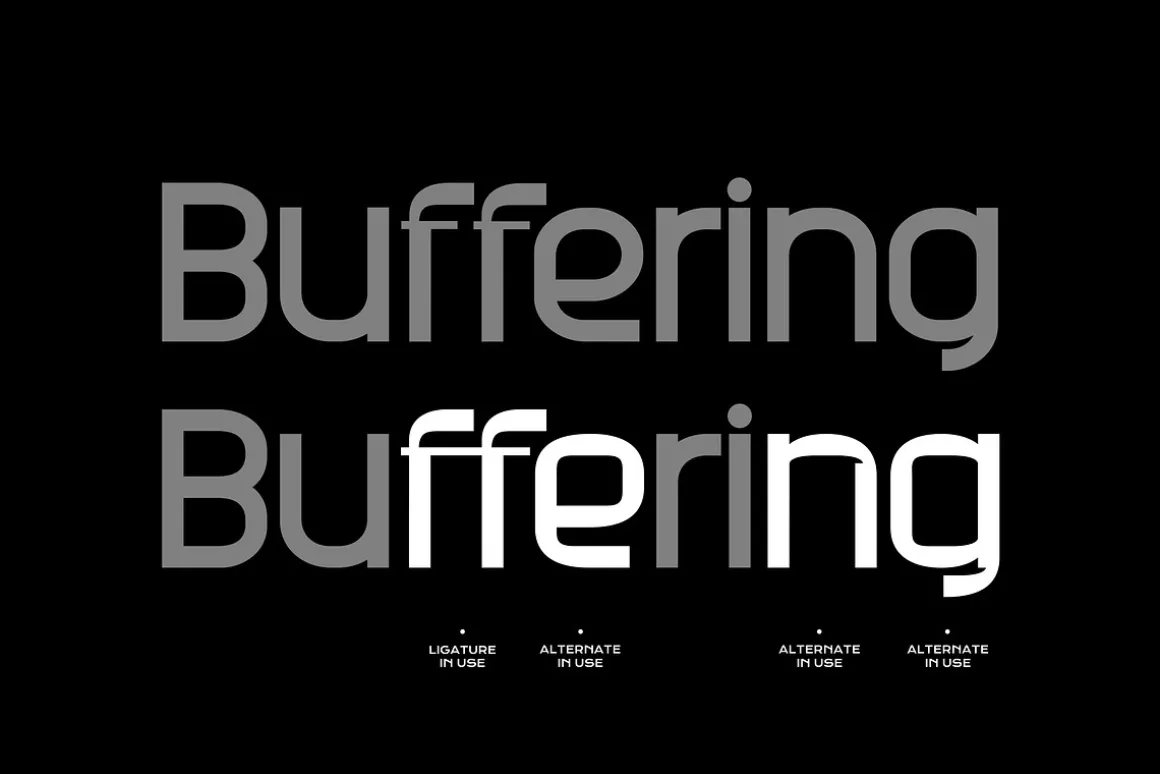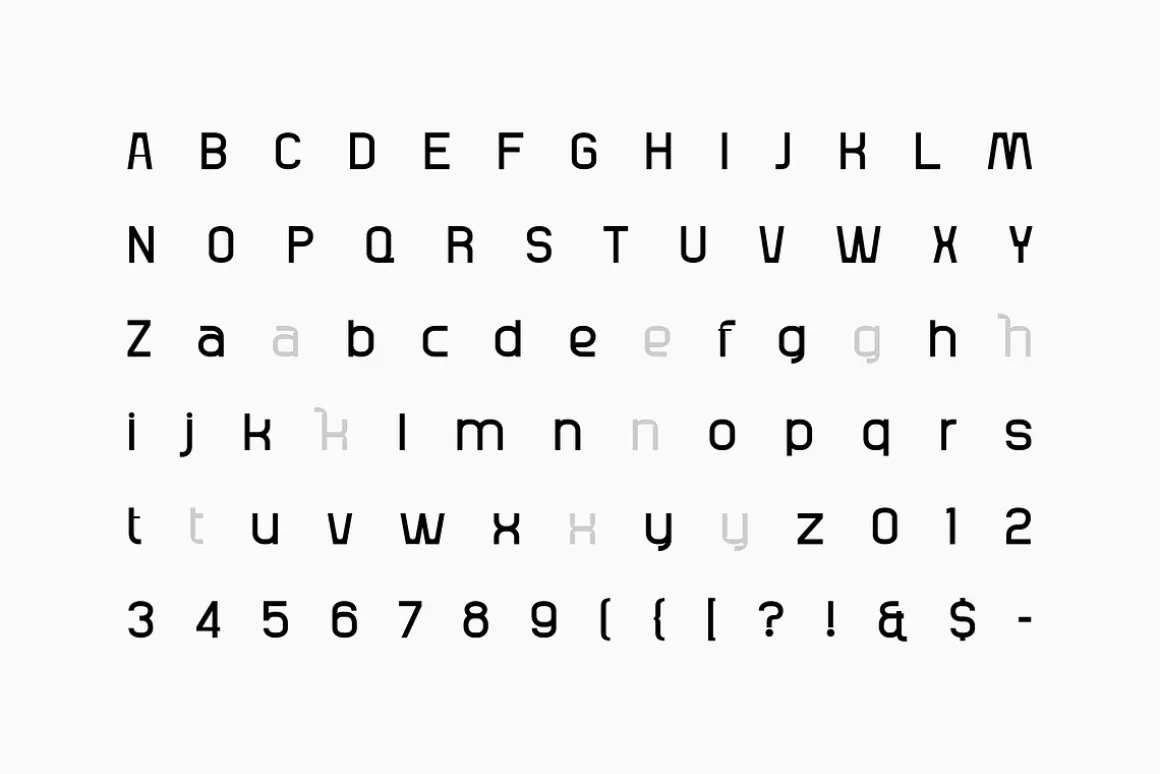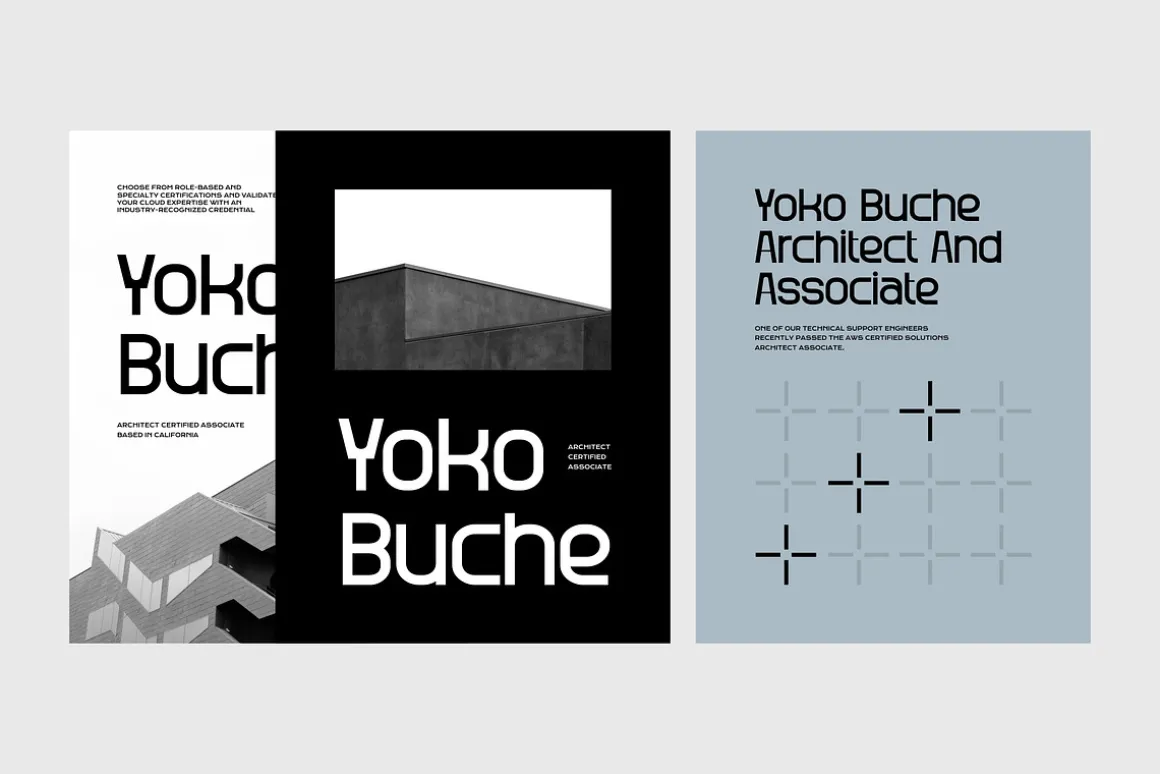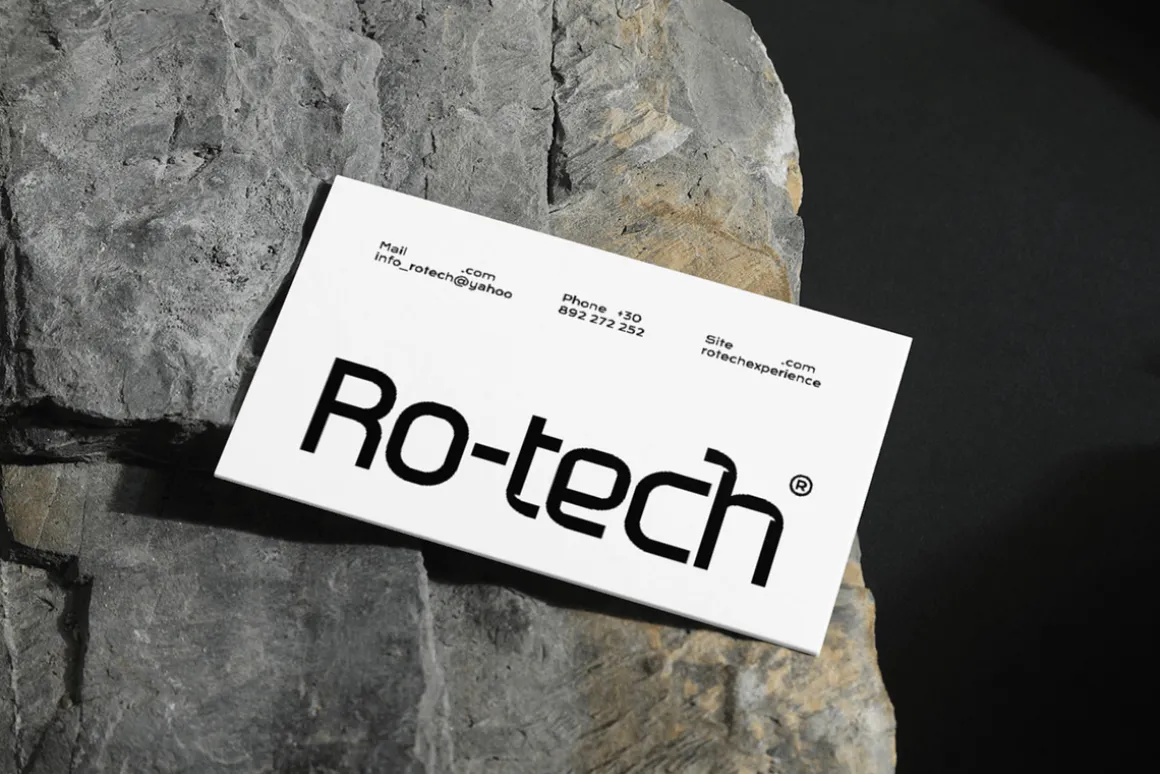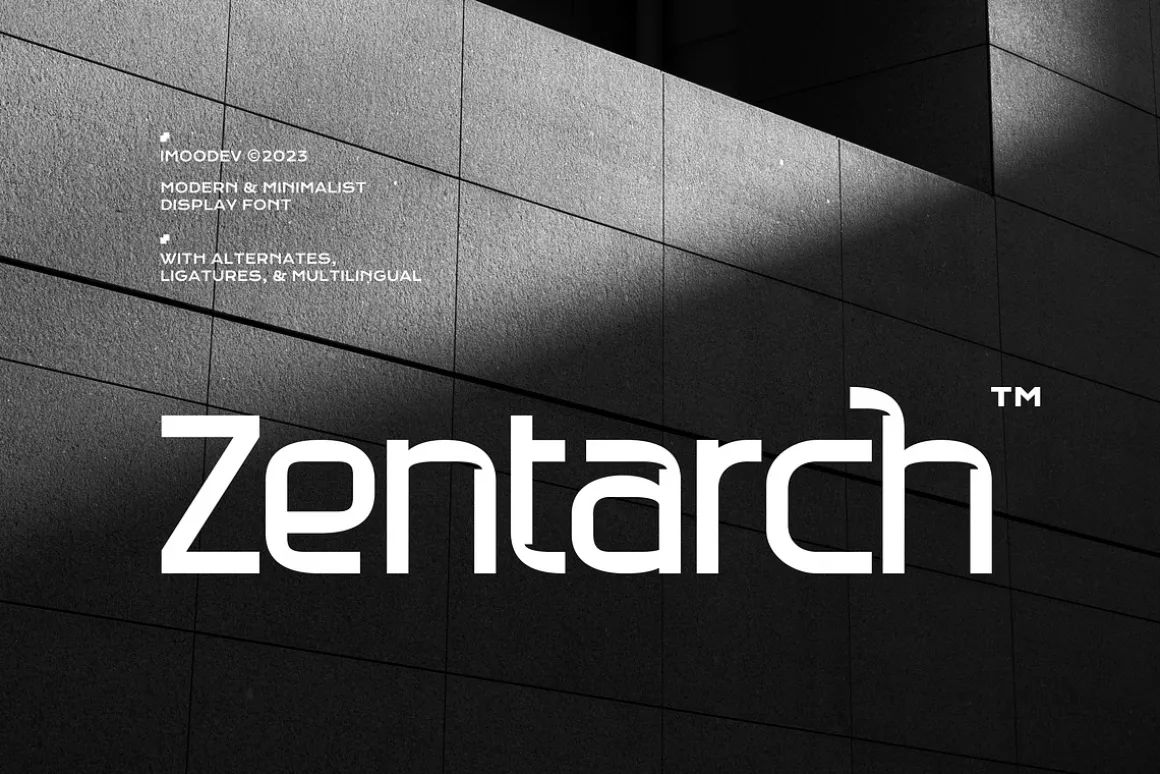
Step into the future of design with Zentarch, a modern and minimalist display font that perfectly captures a sophisticated, tech forward aesthetic. Zentarch is built on a foundation of striking contrasts, blending sharp, geometric precision with elegantly curved and wide letterforms. This unique duality makes it an incredibly versatile and memorable choice for any project that demands a clean yet powerful voice.
With its bold presence and architectural feel, Zentarch is ideal for making a statement. The font clean lines and distinctive characters ensure high legibility while providing a unique typographic personality. Whether you’re designing a sleek logo for a tech startup, creating impactful headlines for a magazine, or branding an architectural firm, Zentarch delivers a look that is both professional and cutting edge.
- Uppercase and Lowecase Characters.
- Numerals and Punctuations.
- Alternates and Ligatures.
- Multilingual Support.